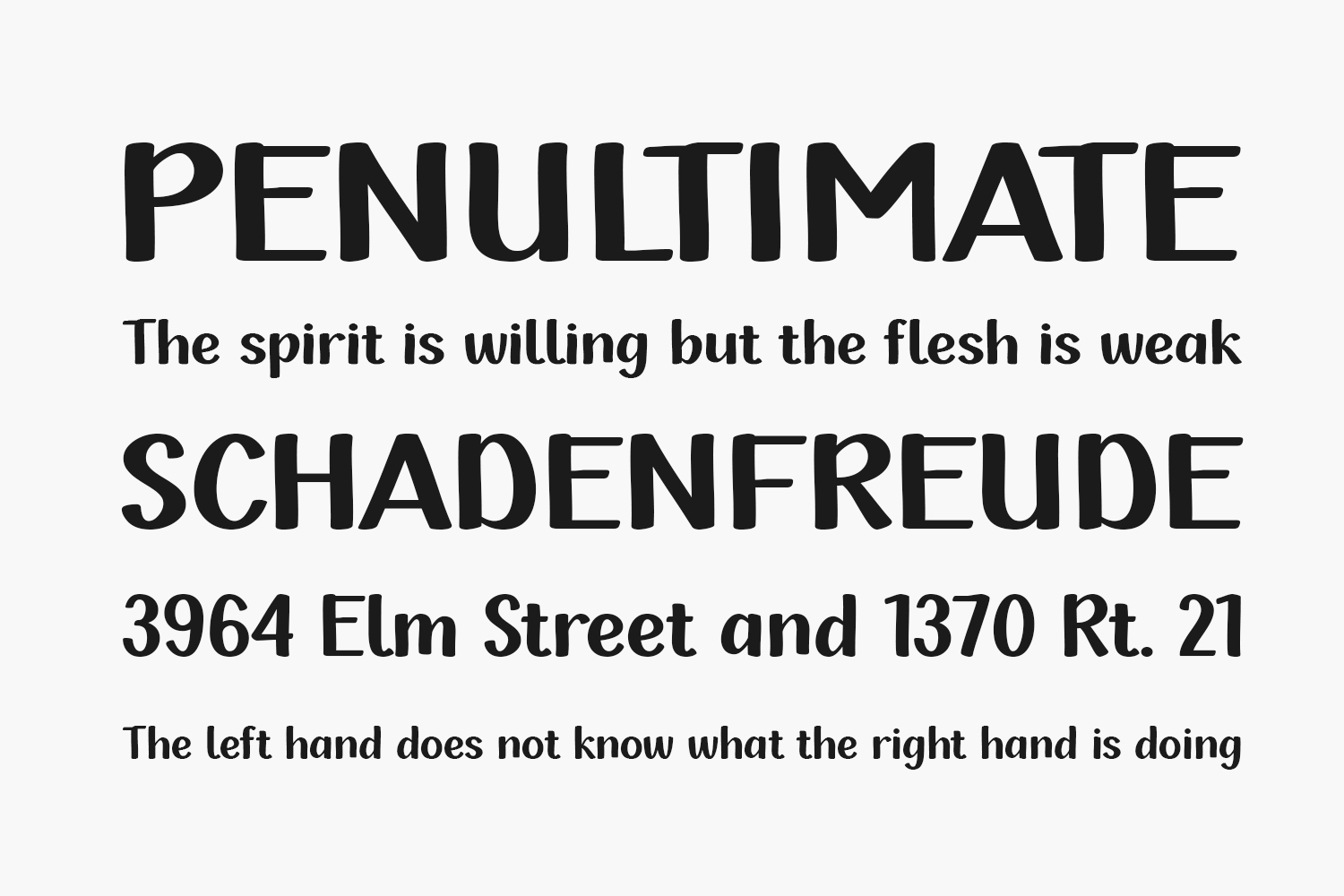
Heyla Free Font Family is an adorable script typeface that showcases captivating and lively characters that appear to move gracefully along the baseline. Its charming style makes it perfect for adding a touch of playfulness to your designs.